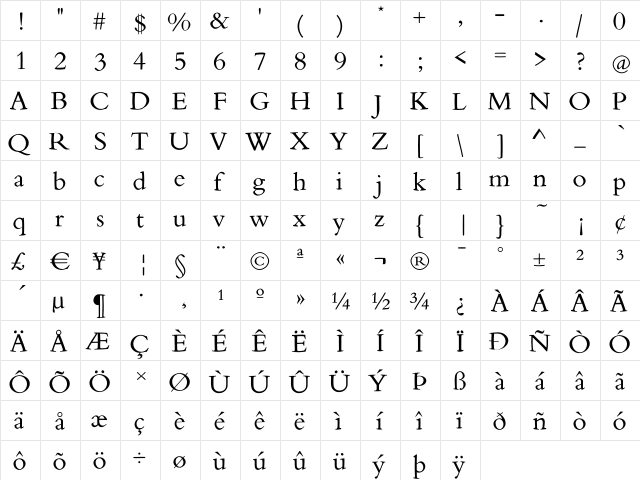
MyMedieval Regular Font Preview
MyMedieval Regular
Design Context for MyMedieval Typeface
MyMedieval is a composed and adaptable typeface that performs quietly and consistently across a wide range of design contexts.